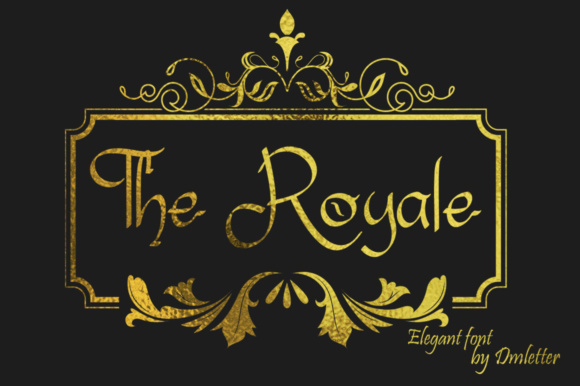
The Royale Font
In a realm where typography meets enchantment, discover The Royale Font, an elegant display typeface, crafted by the visionary hand of dmletter31. Embark on a whimsical journey as you immerse yourself in the world of The Royale, a font that captivates with its fairy tale charm.
Awe-inspiring and extraordinary, The Royale is not merely a font; it's an artistic gateway that transports you into a world of dreams, where every word dances with grace and beauty. Its delicate swashes, like trails of stardust, weave a narrative of elegance, making your designs glimmer with otherworldly radiance.
Unleash the power of The Royale and watch as your words transform into enchanting works of art. Cast spells with each letter, captivating your audience with typographic wizardry. Be it a royal invitation, a magical poster, or a whimsical branding project, The Royale is your wand, ready to conjure a realm of visual delight.
Step into the spotlight with The Royale, where every letter holds the key to unlocking a world of creative possibilities. Its timeless beauty transcends trends, making it an enduring choice for those seeking typographic excellence. Embrace the magic of The Royale and elevate your designs to realms of enchantment and allure.